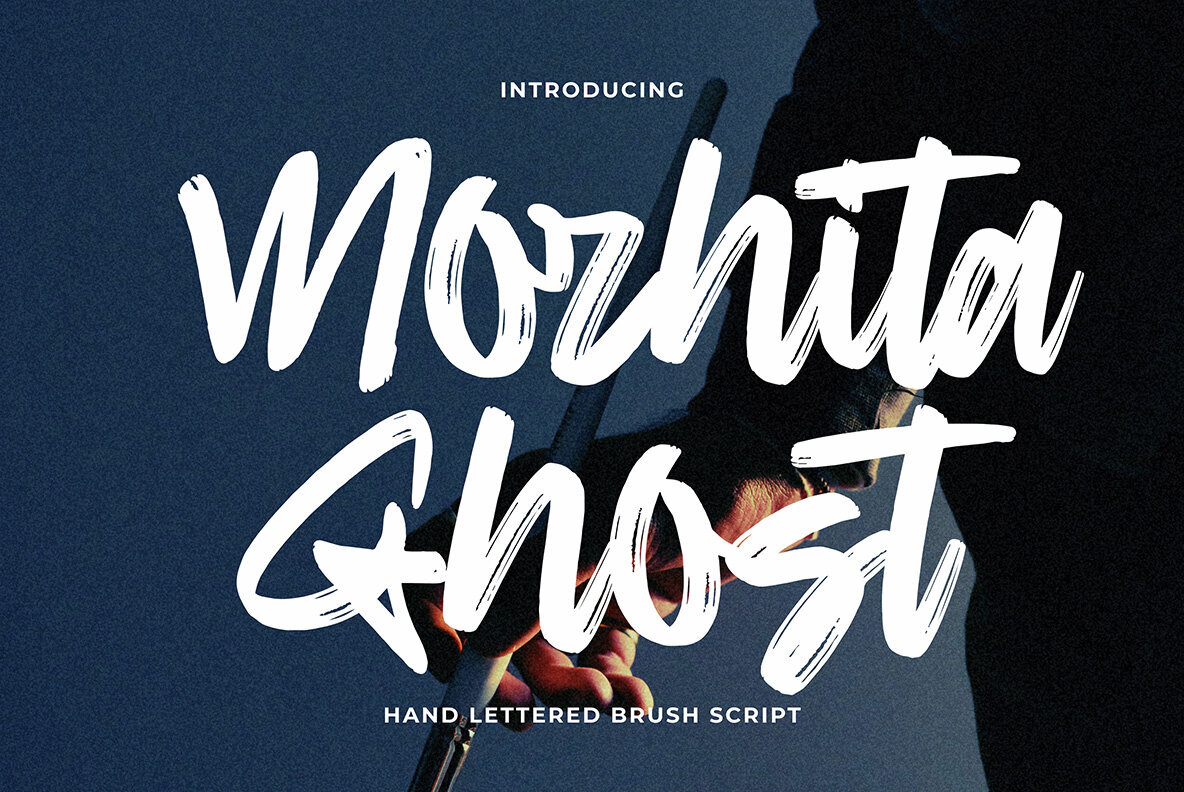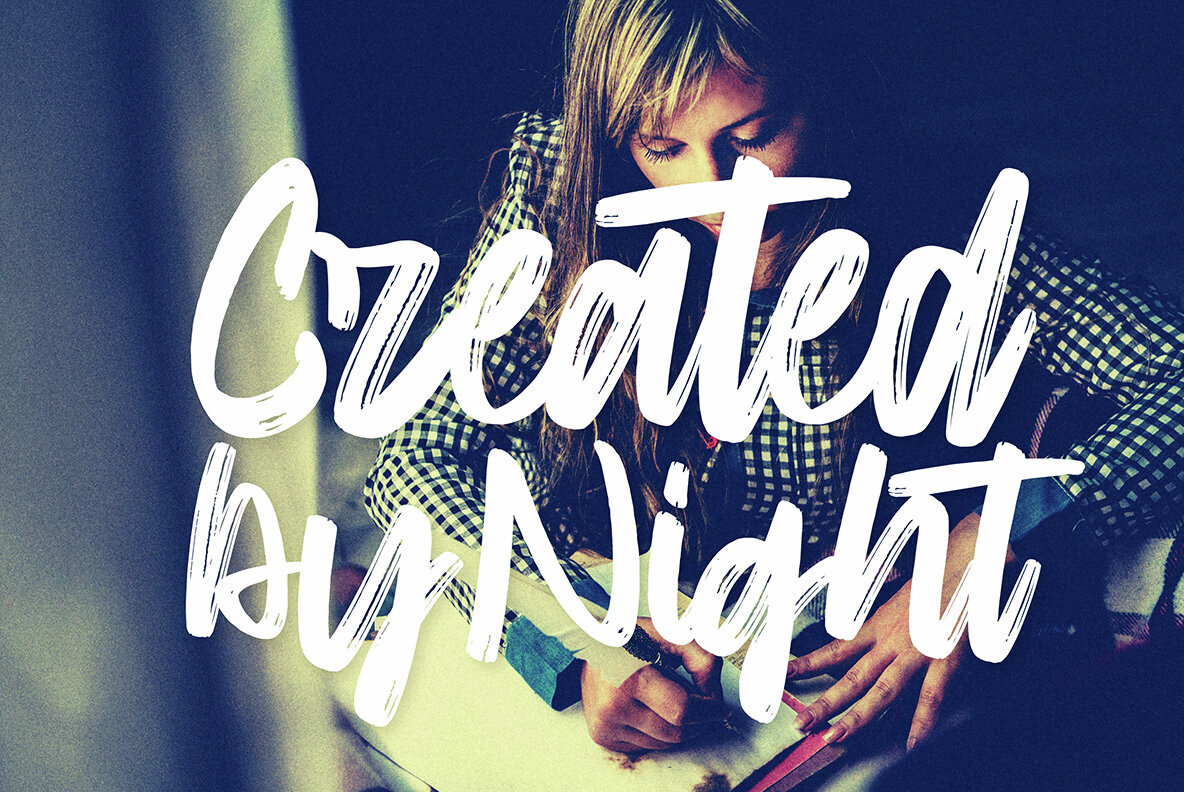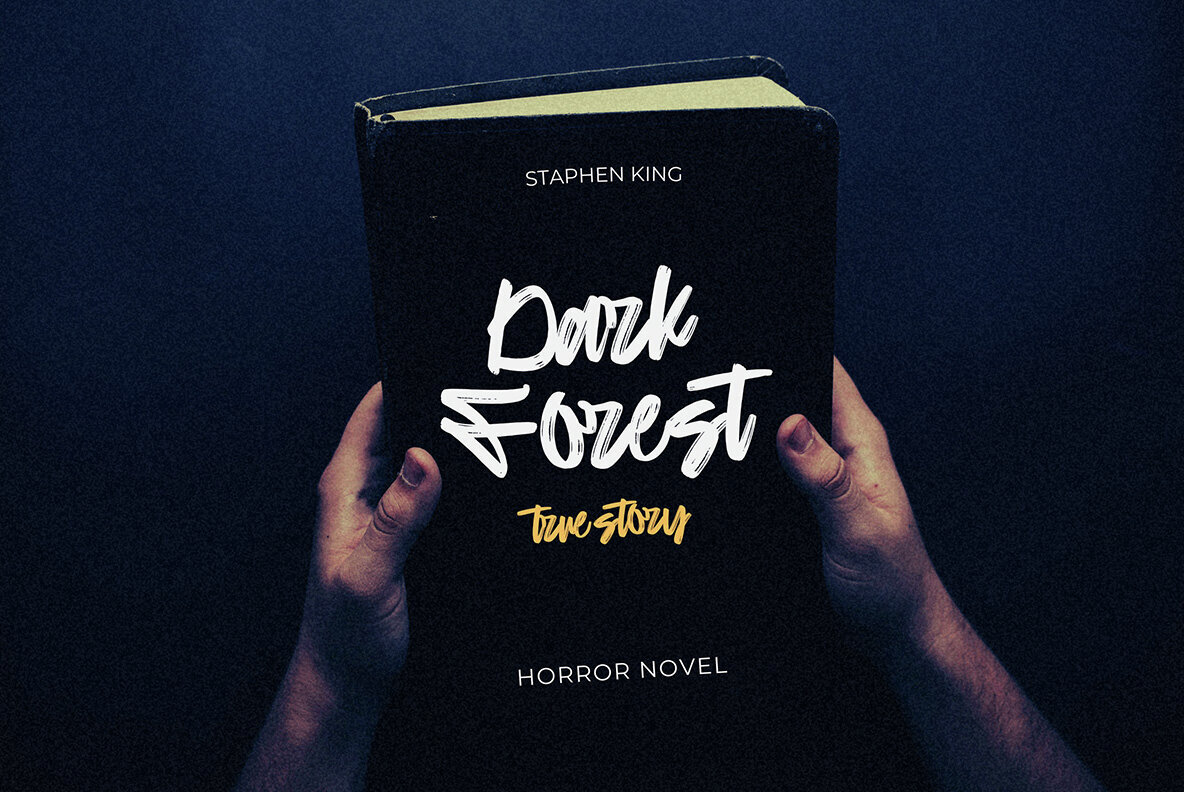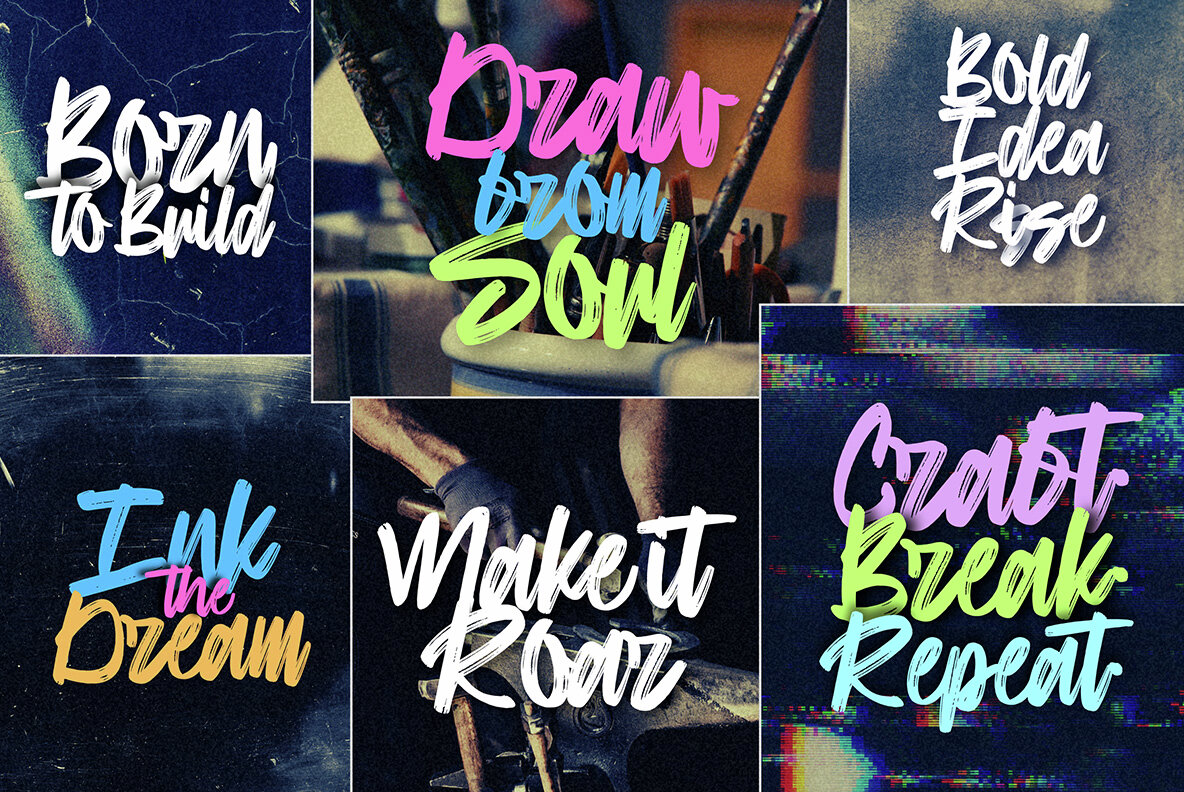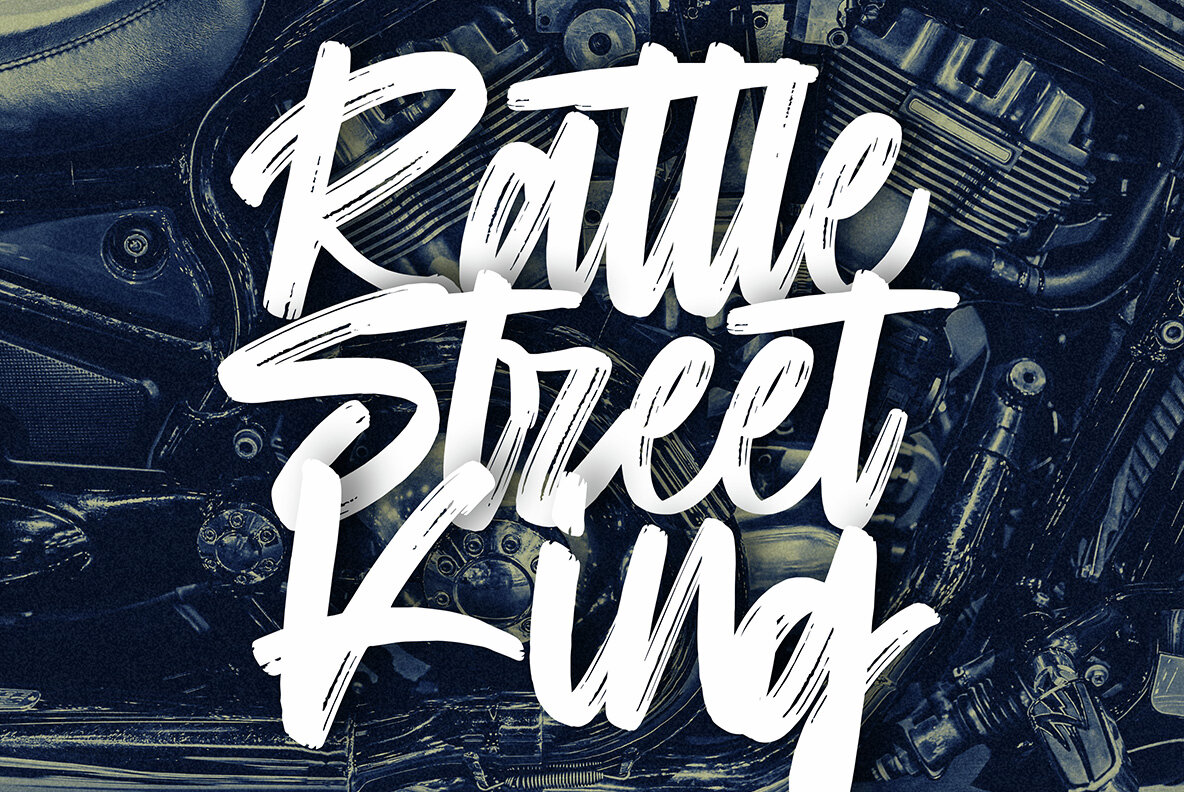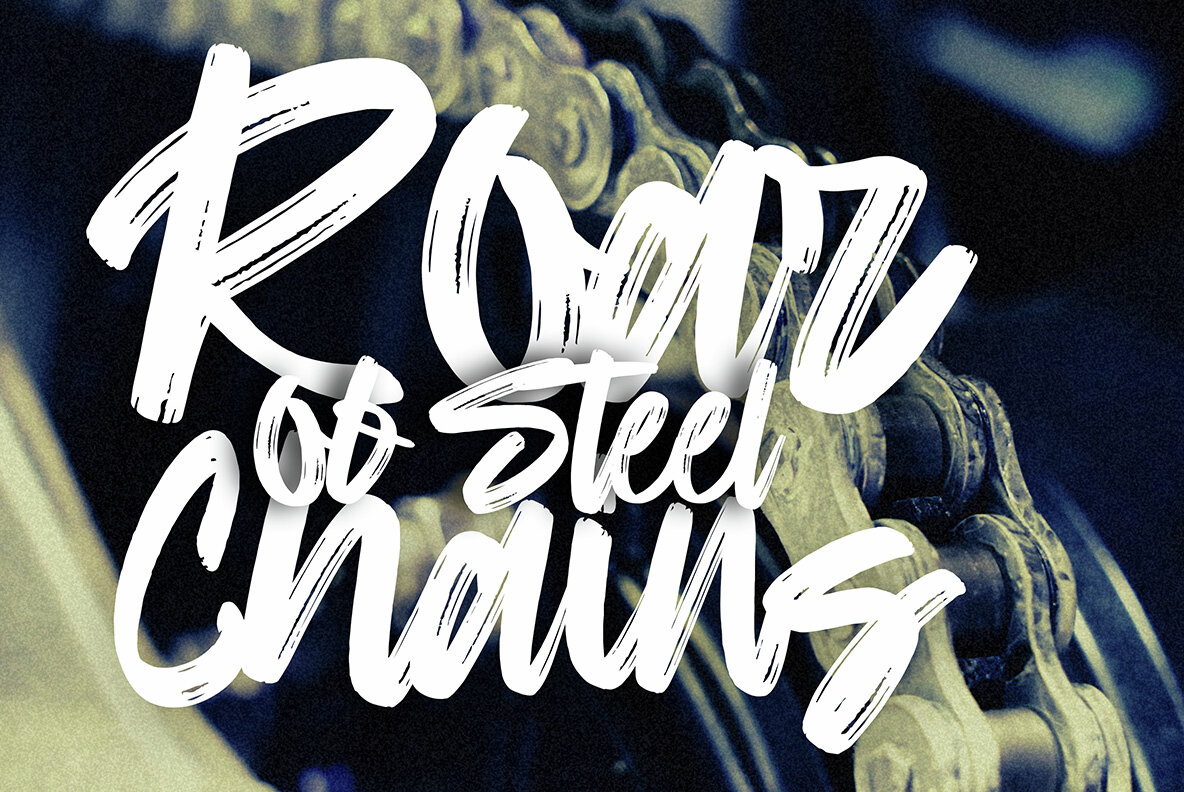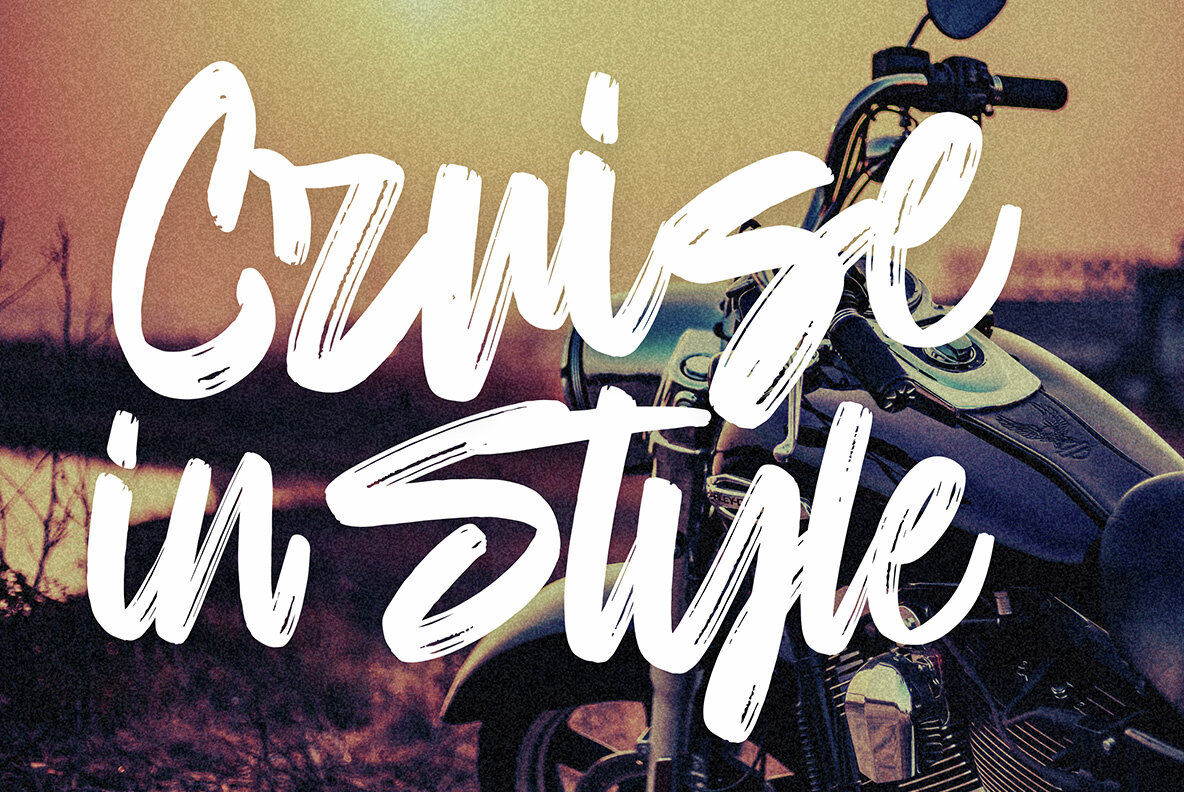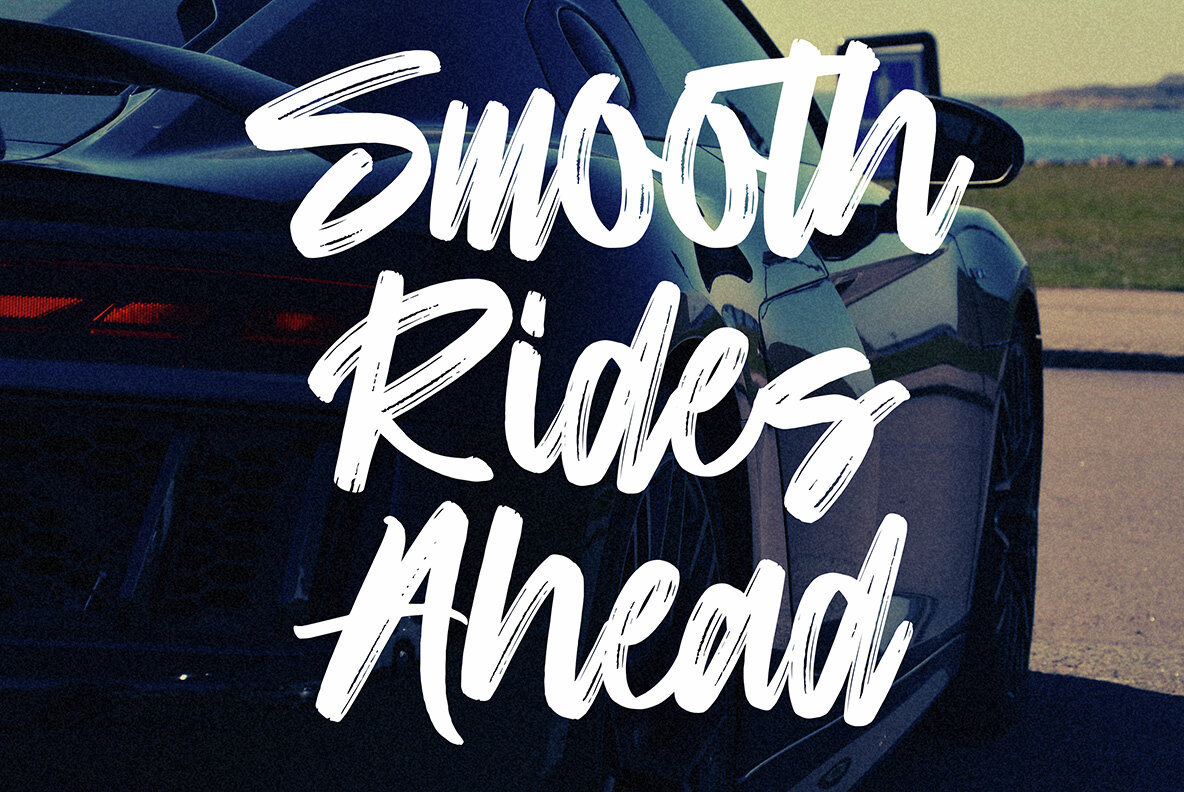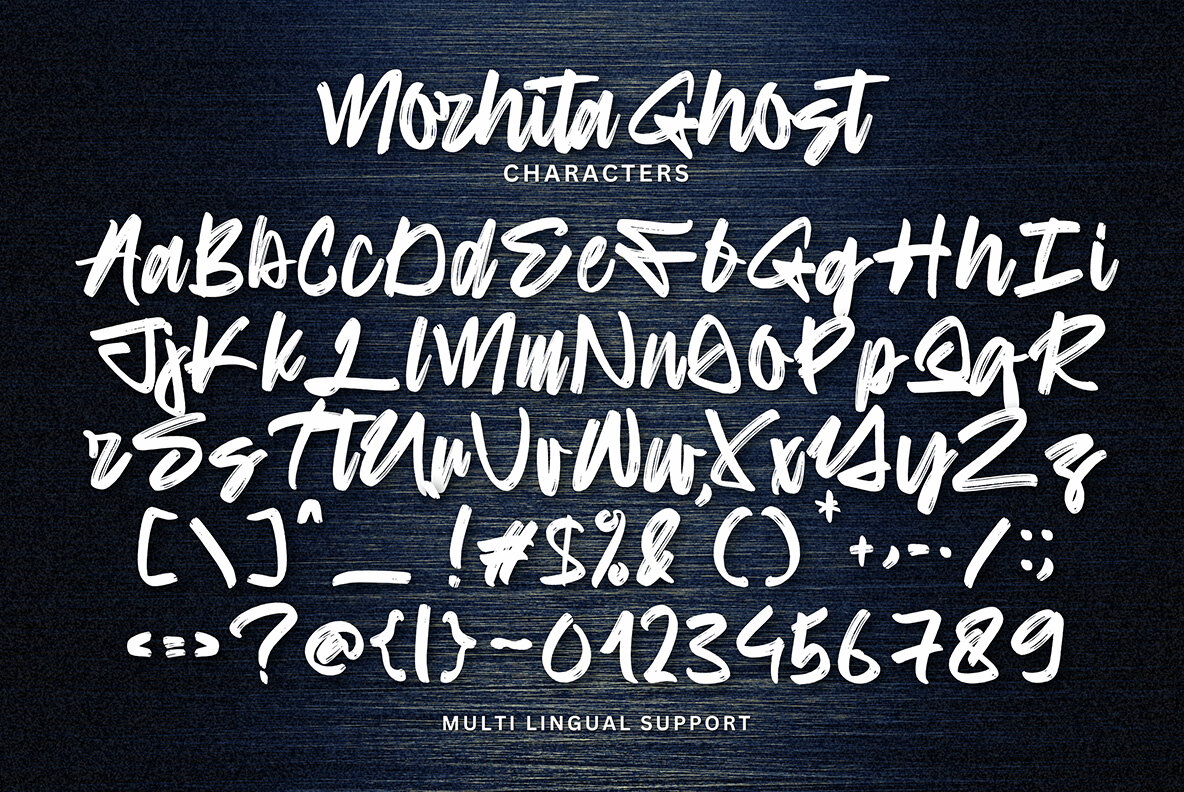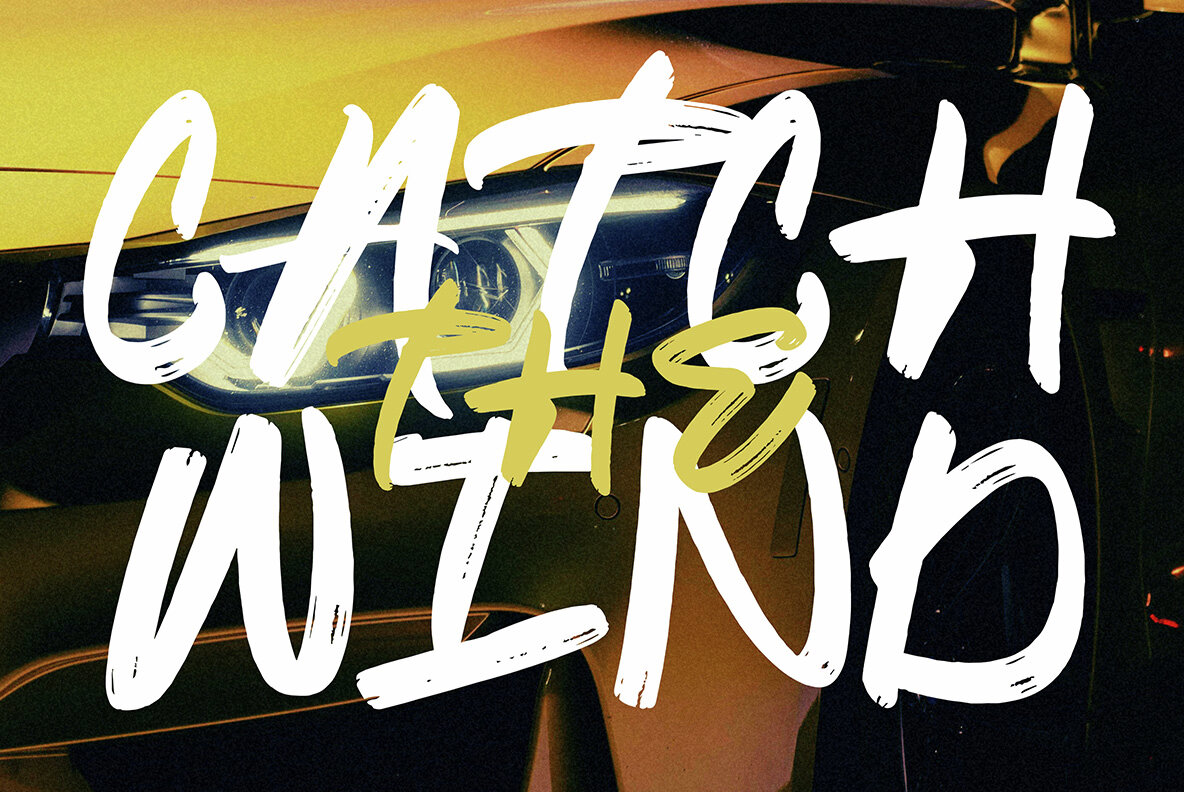
Morhita Ghost Font
Morhita Ghost Regular
Morhita Ghost is a bold brush script that embodies a rugged, hand-drawn charm. With real brush pen strokes, it offers a natural texture and expressive personality. Each letter is slightly rough yet intentional, providing a handcrafted touch that invigorates your designs. Experience the dynamic blend of boldness and authenticity with Morhita Ghost. Ideal for a variety of creative projects, this font stands out in every stroke.Morhita Ghost Font